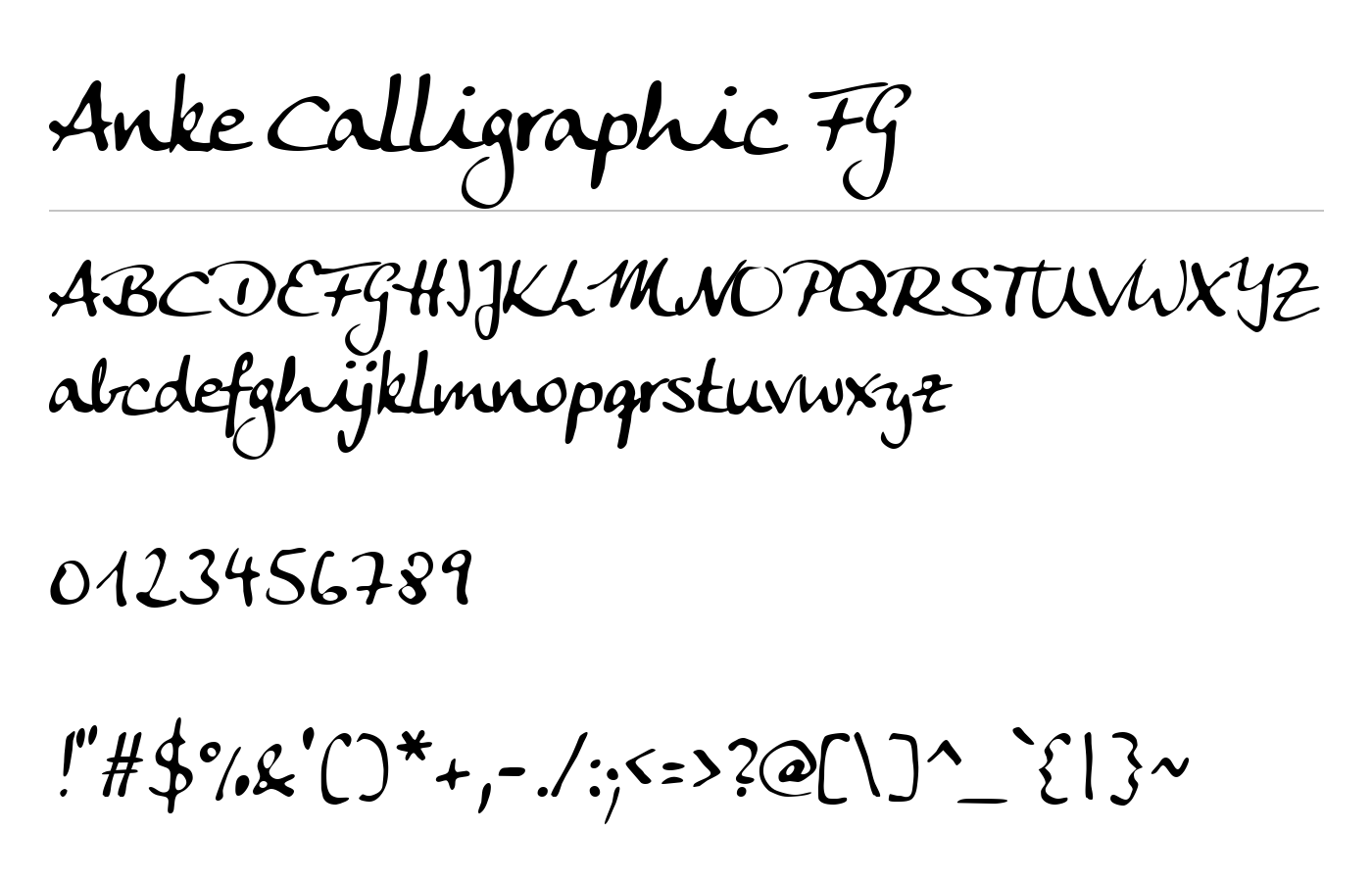
Anke Calligraphic FG is a playful and expressive handwritten script font with a casual, organic feel. Its fluid strokes and varying line weights give it a lively, personal touch, making it ideal for creative projects, invitations, or brands seeking a warm, approachable style. This font works well in headlines, logos, and packaging where a unique, handcrafted look is desired.
Anke Calligraphic FG Font
About Anke Calligraphic FG Font
| Font family | Anke Calligraphic FG Font |
| Designer | Anke Arnold & Andreas Höfeld |